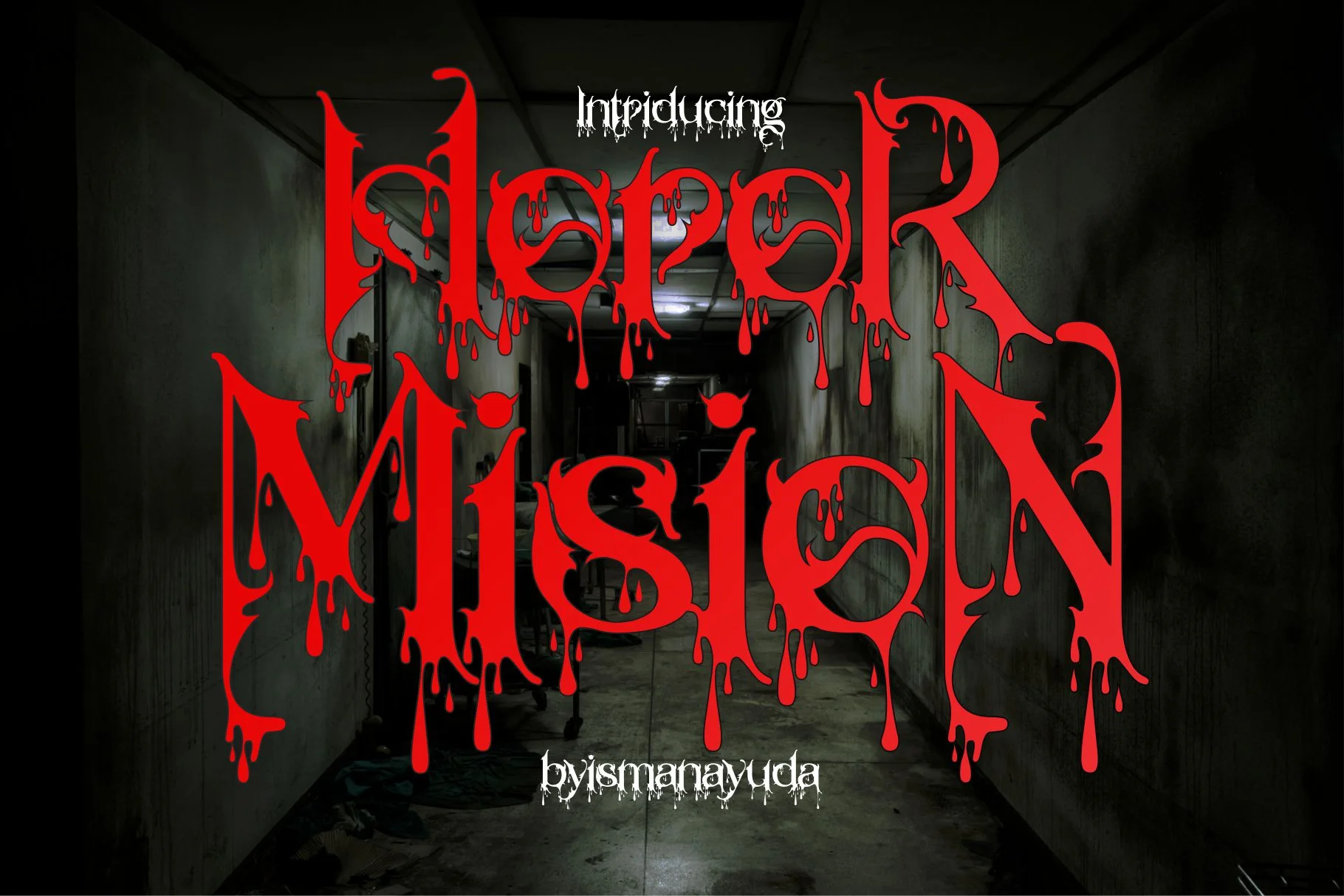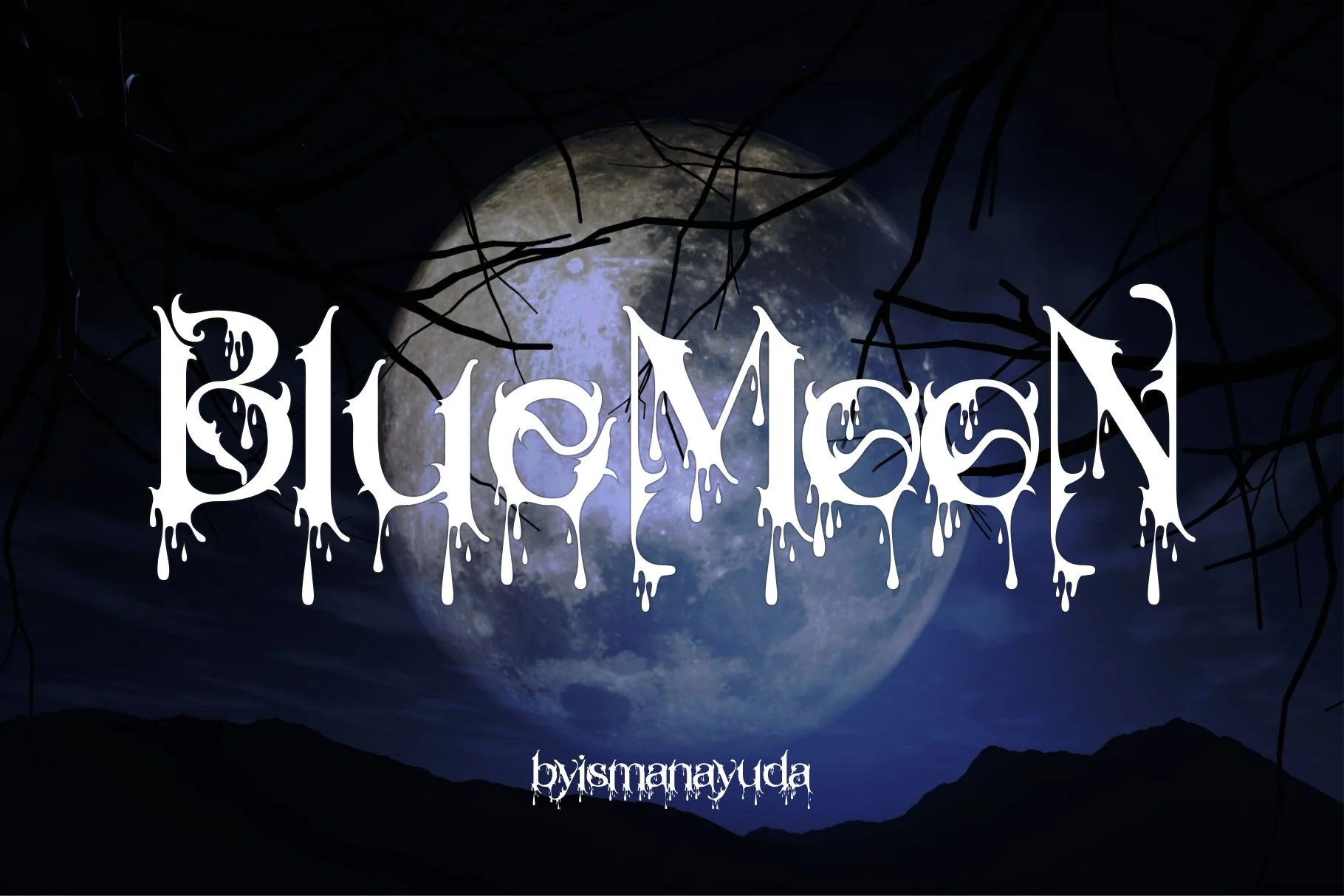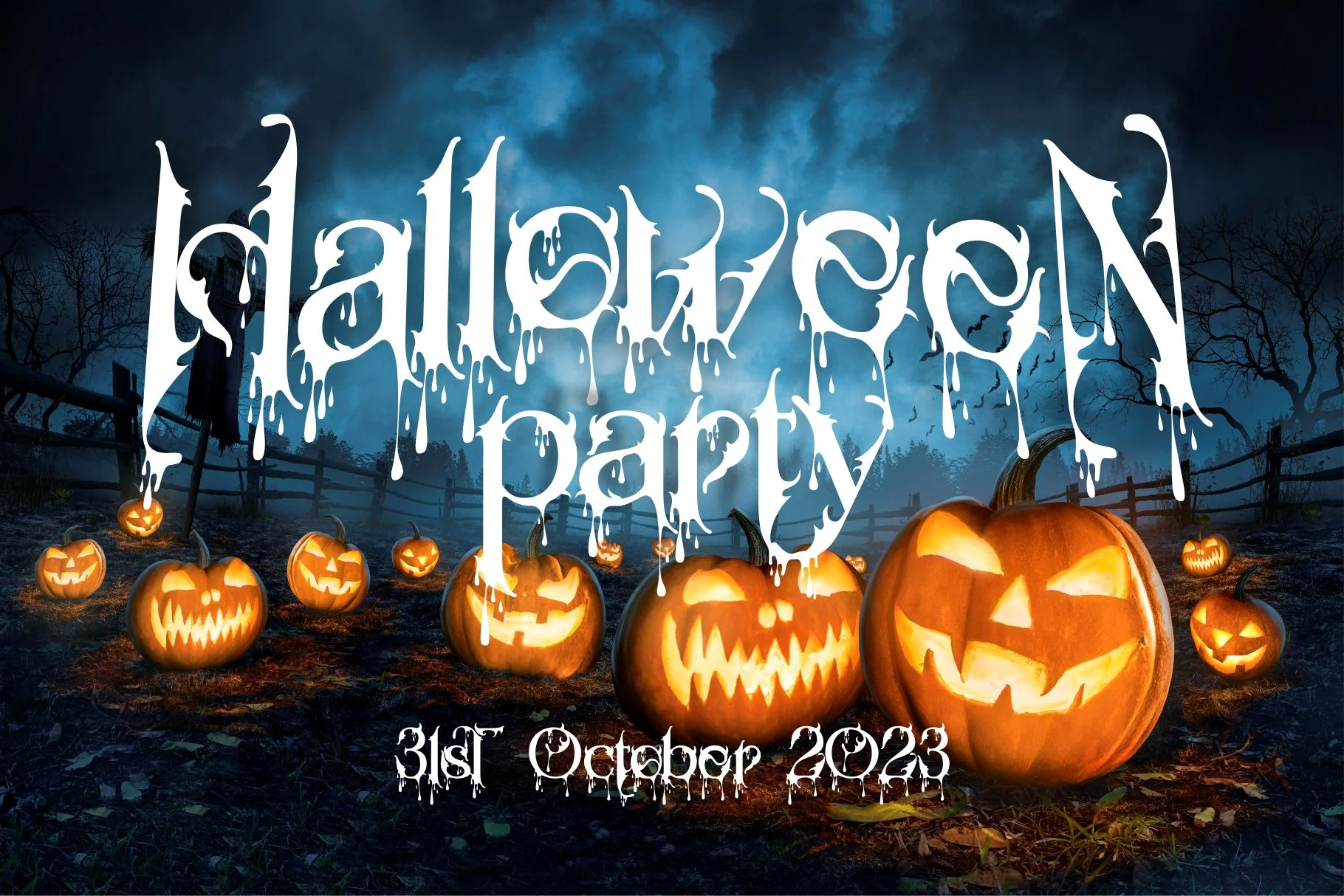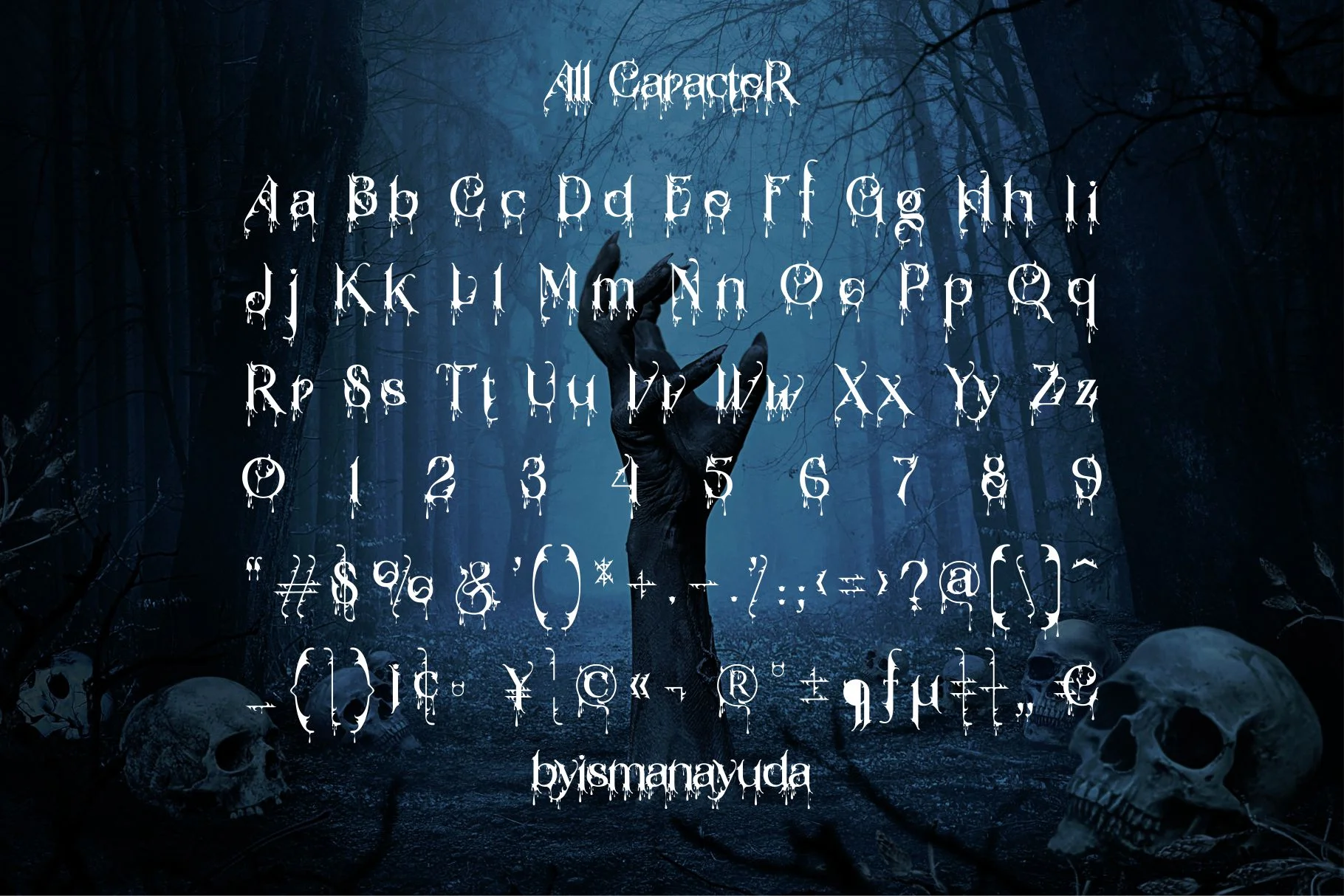
Horor Mision
Horor Mision is a bold, horror-themed font designed specifically to evoke a sense of terror and suspense. Its primary visual feature is the "bloodshed" effect, with dramatic red drips extending from the base of each letter to mimic fresh blood. The letterforms themselves are sharp and irregular, drawing inspiration from blackmetal and gothic aesthetics to create a jagged, unsettling appearance. It is widely used for Halloween posters, metal band logos, and branding that requires a dark, macabre atmosphere.